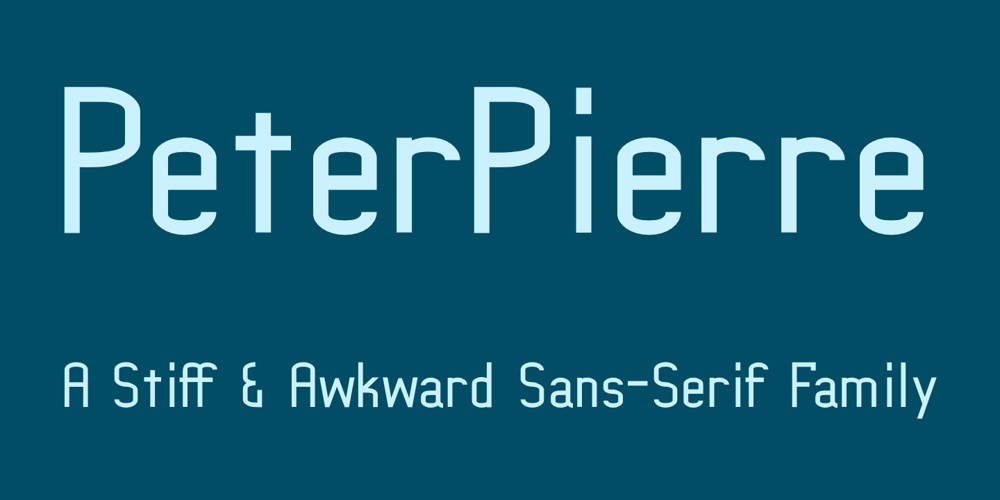
PeterPierre Font Family was designed by Robert Schenk and published by Ingrimayne Type. PeterPierre contains 10 styles and family package options. PeterPierre is a stiff, awkward sans serif face. It has little variation in stroke width and the vertical and horizontal elements are connected with short, sharp curves. The condensed style was developed first and then, in a quest for legibility, it was widened into the regular style.